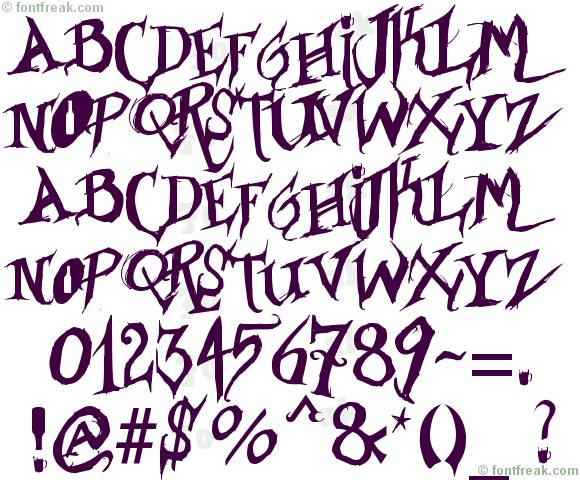
Borracho & Loko
Borracho & Loko is a striking display font designed by Juan Casco, and it falls under the category of decorative typefaces. Released in 2009, this font exudes a bold, expressive personality, characterized by its unique, artistic strokes that evoke a sense of creativity and spontaneity. The visual style features a dramatic contrast in stroke weight, giving it a dynamic appearance. The letters are irregular and slightly exaggerated, with playful curves and sharp angles that enhance its decorative nature. The spacing between characters is thoughtfully designed to maintain readability while allowing each letter to stand out.
This font is particularly well-suited for a variety of creative applications. It can be effectively used in eye-catching wedding invitations, where its artistic flair can convey a sense of celebration. Movie posters benefit from the boldness of Borracho & Loko, drawing attention and creating a vibrant atmosphere. Restaurant menus can also utilize this font to highlight special dishes, giving them a unique and memorable presentation. Moreover, it serves well in promotional materials for events or festivals, where capturing the audience's attention is crucial.
What sets Borracho & Loko apart is its ability to blend artistic flair with functionality. Its bold, dynamic letters not only command attention but also retain legibility, making it a versatile choice for various design needs. For those seeking a unique touch in their typography, the Borracho & Loko font free download offers an exciting opportunity to enhance any creative project.